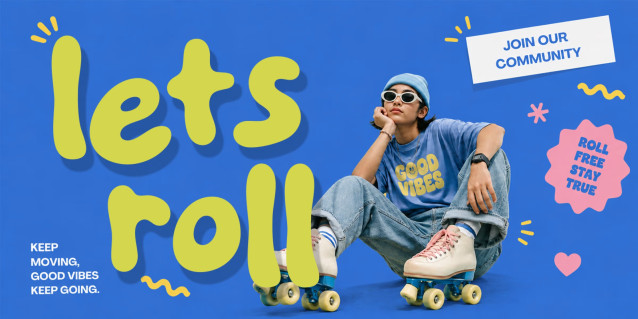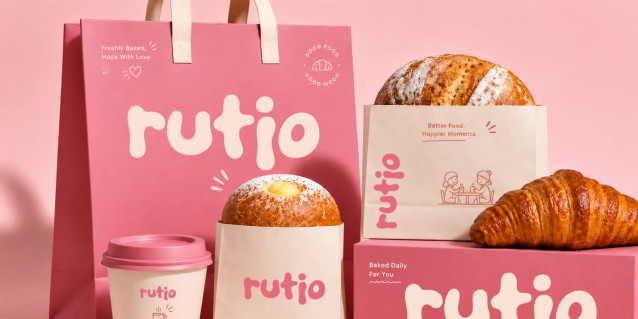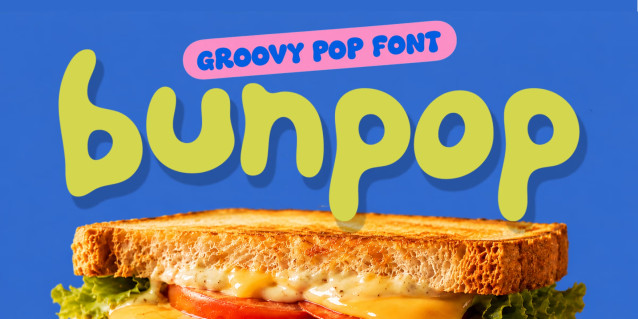
Bunpop Font
Bunpop is a playful groovy display font with soft, chunky letterforms and a bold retro personality. Its rounded shapes and organic curves create a fun, friendly look that feels nostalgic yet fresh.
Designed to stand out in food branding, packaging, café identities, fashion, posters, and lifestyle projects, Bunpop brings an expressive pop character to headlines, logos, and short phrases.
Its bold silhouette works especially well at large sizes, making it ideal for brand names, product packaging, campaign graphics, merchandise, and social media visuals.